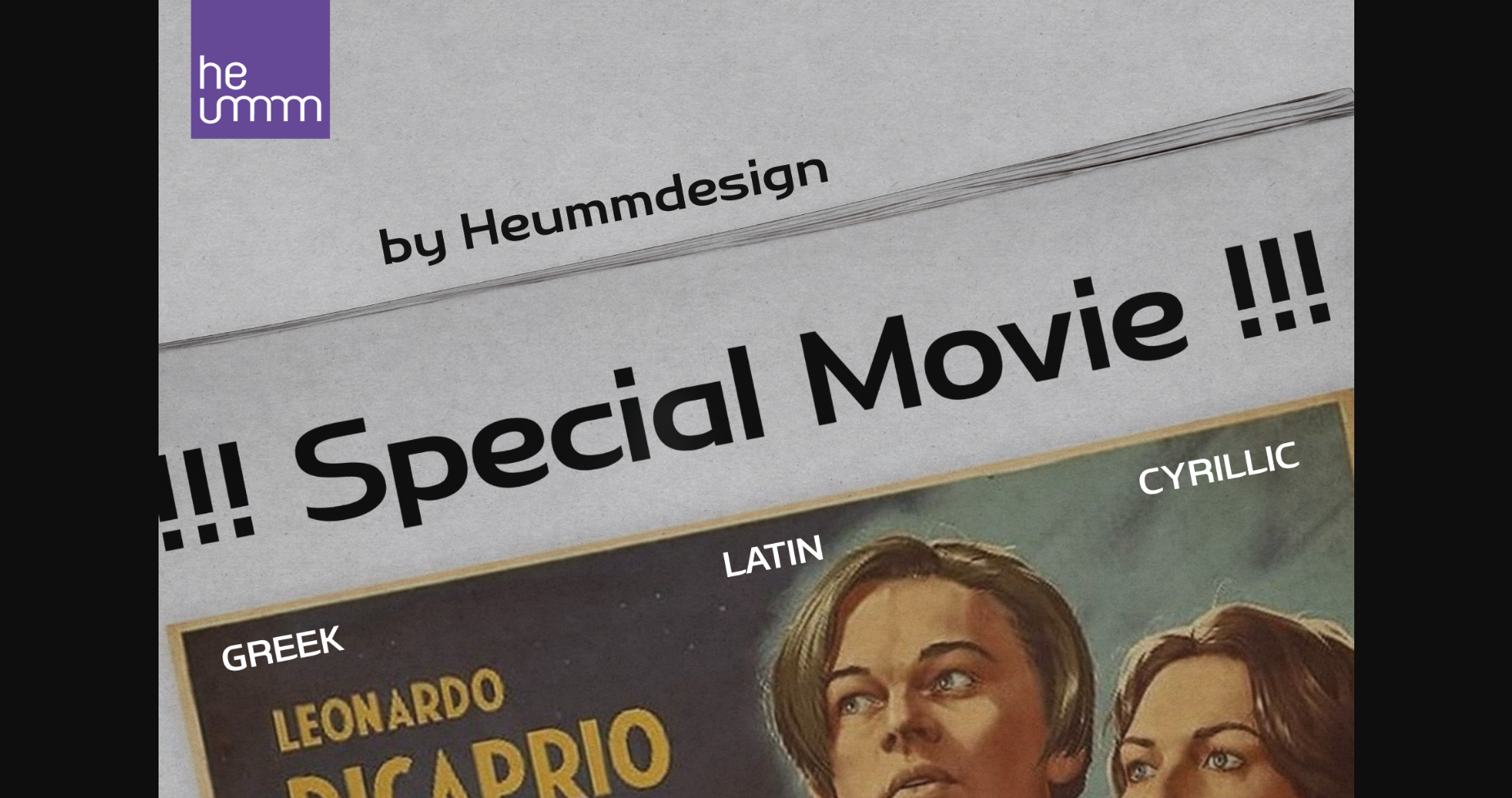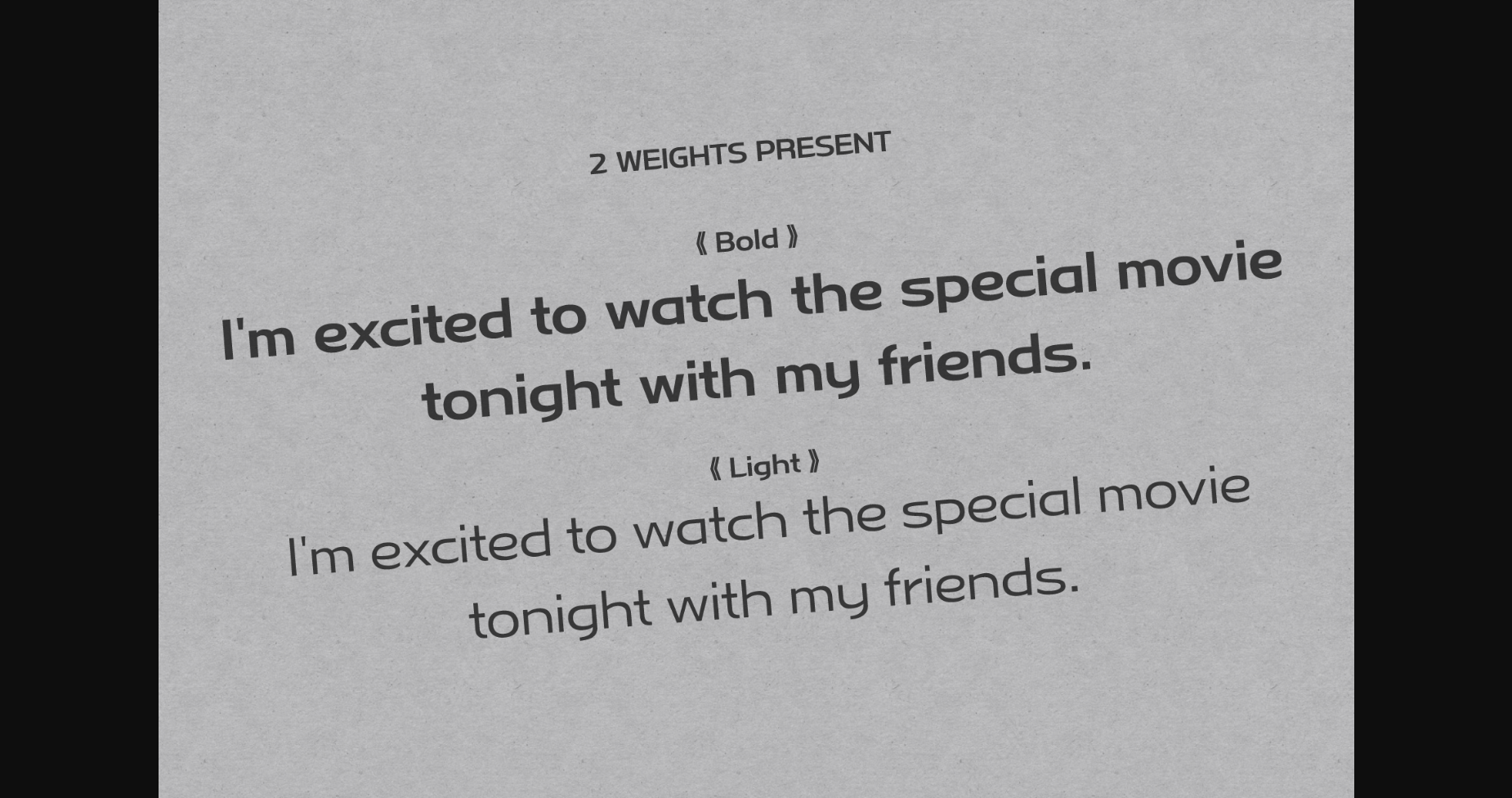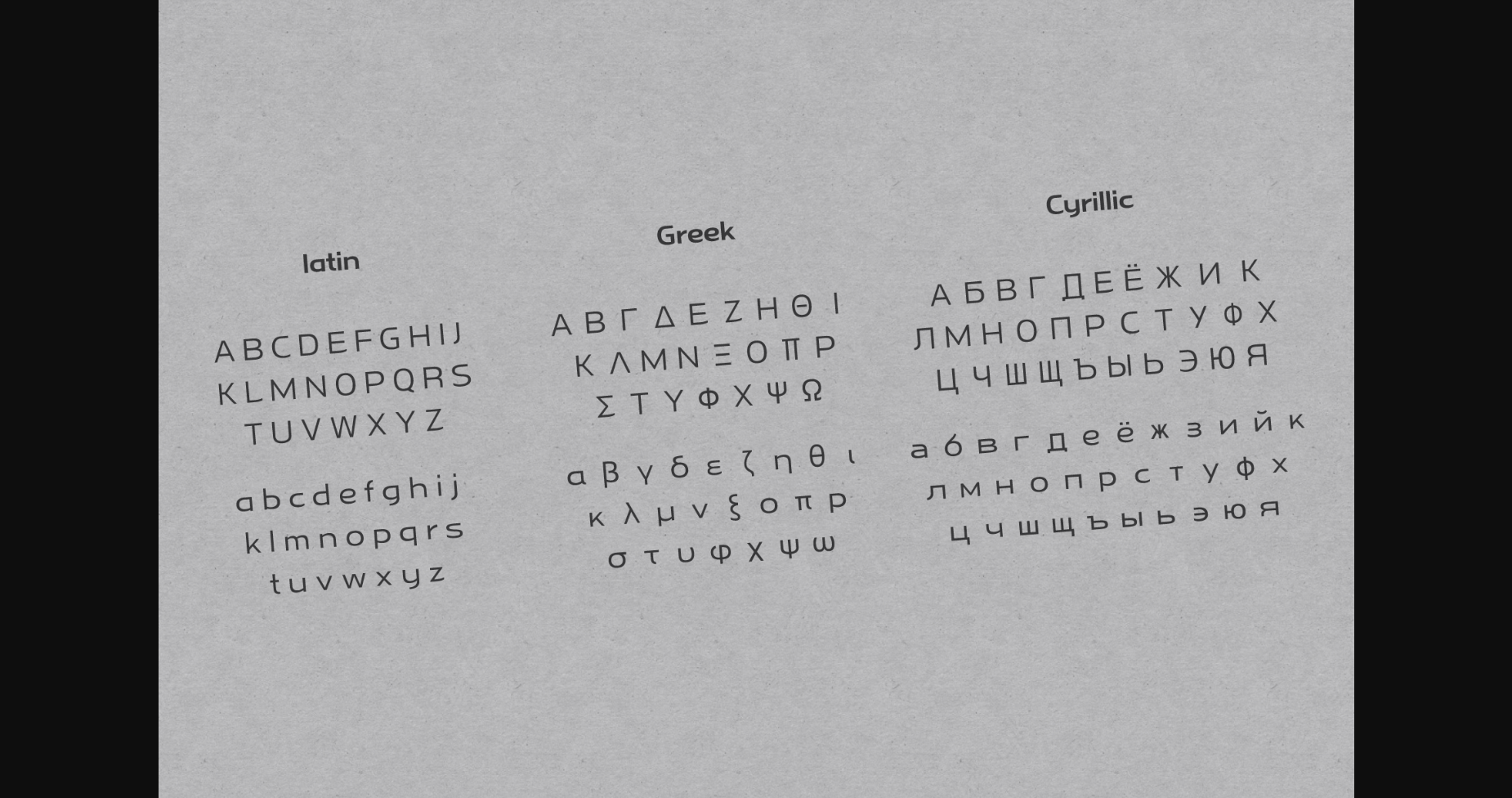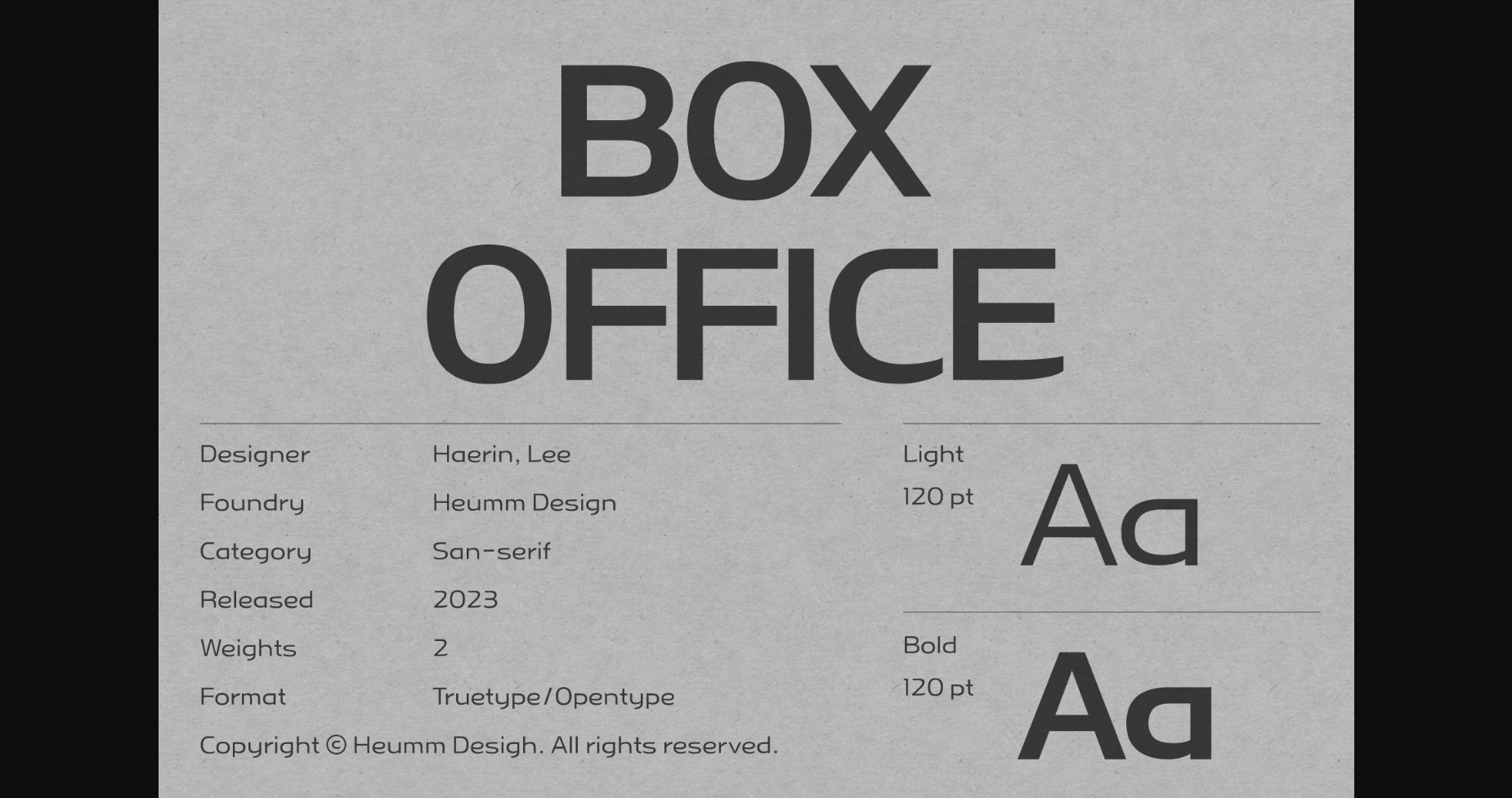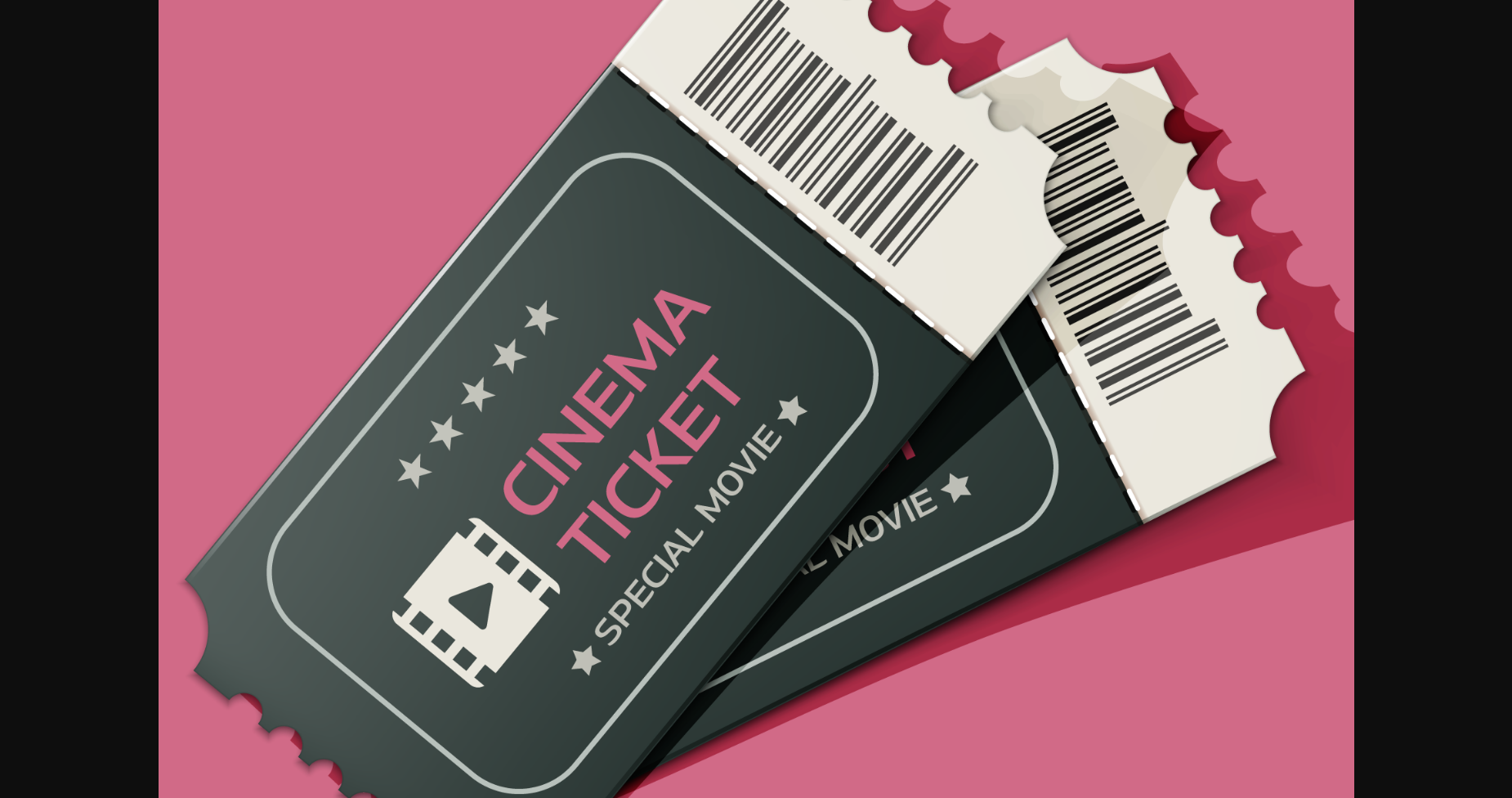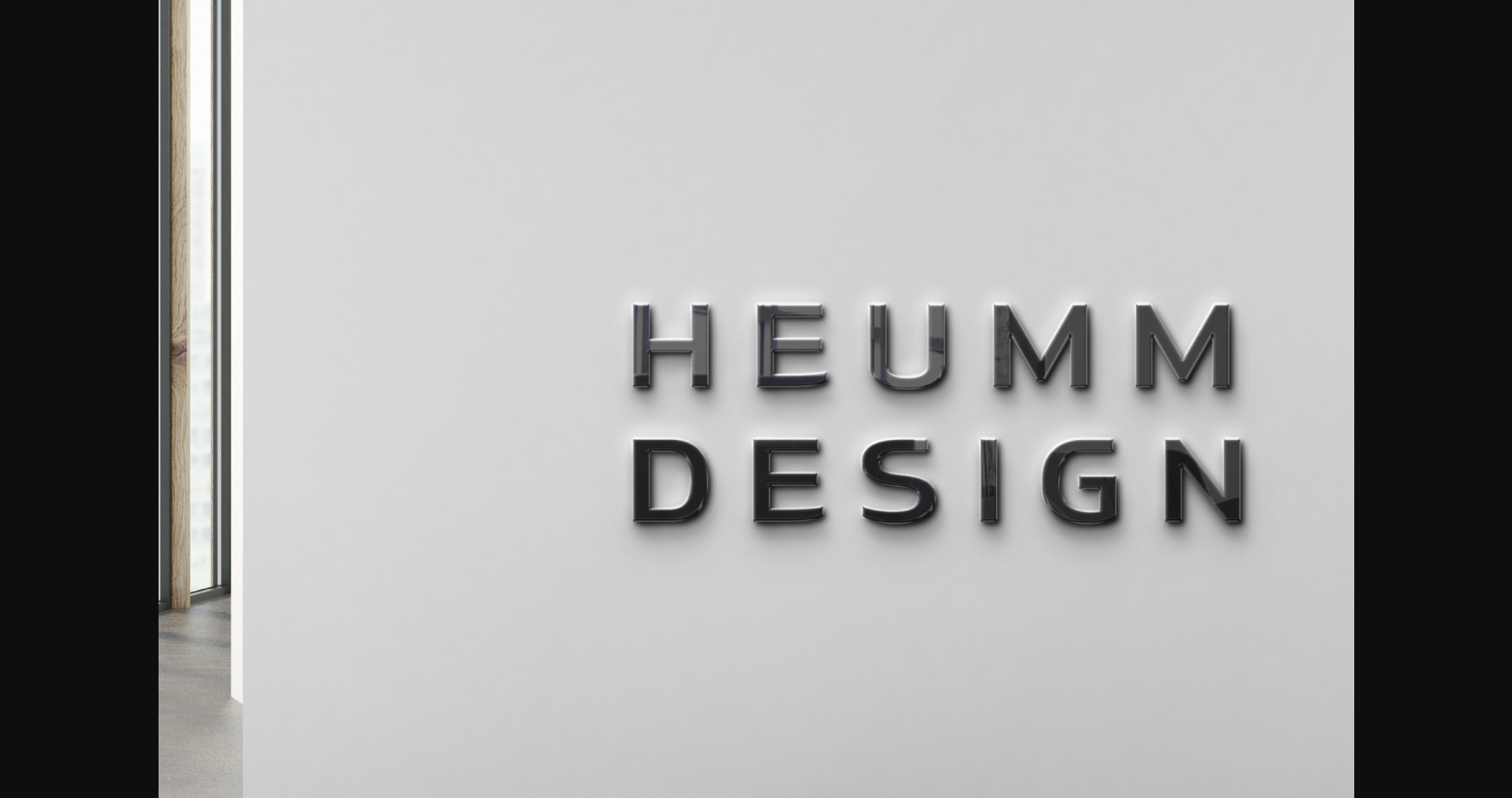
About Special Movie Font
Special Movie is a retro, wide square typeface, characterized by streamlined, narrow stroke ends. The first consonants are designed to be large with full modules to improve readability. The grapheme ‘O’, which is the face of the font, is in the form of a square in harmony with straight lines and curves, expressing a solid and simple feeling overall.